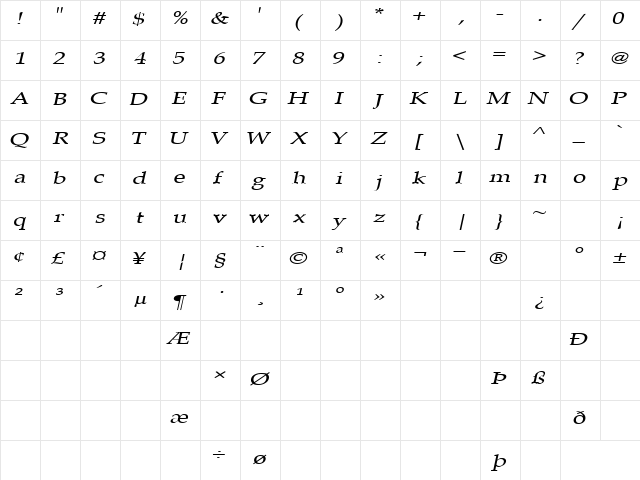
Plain Squashed Regular
Design Context for Plain Squashed Typeface
Plain Squashed takes a measured approach to typography — its balanced proportions and neutral character make it a reliable workhorse for both digital and print work.